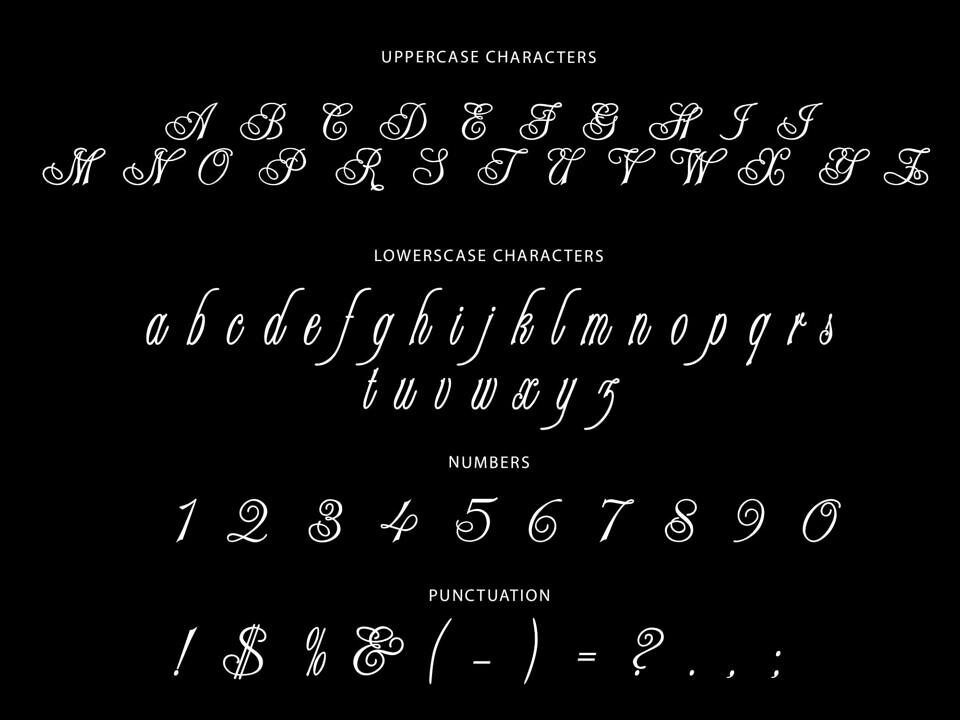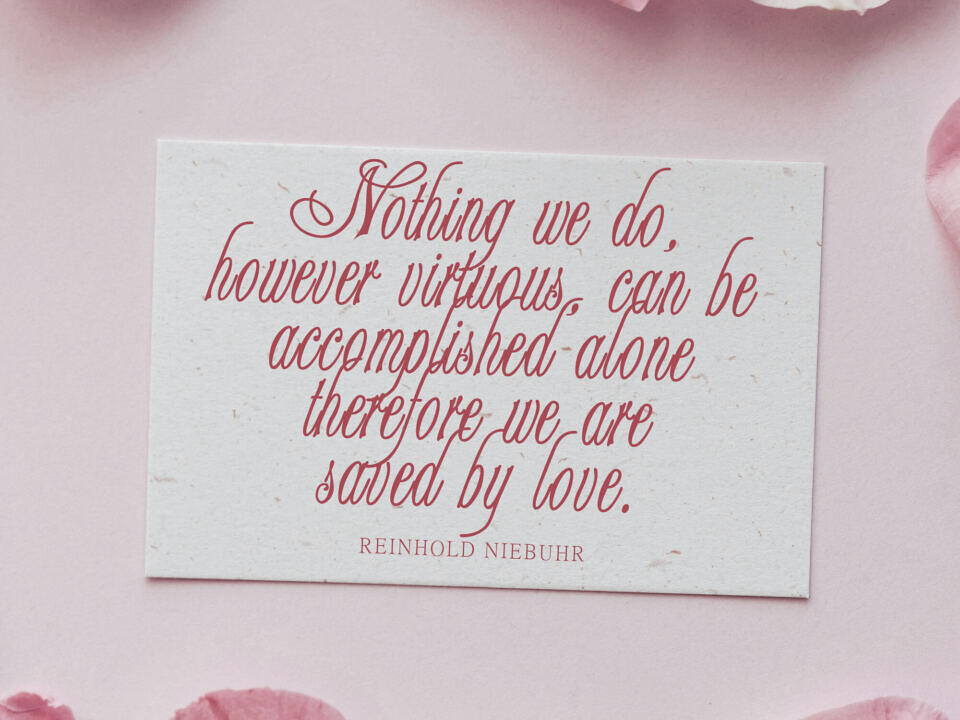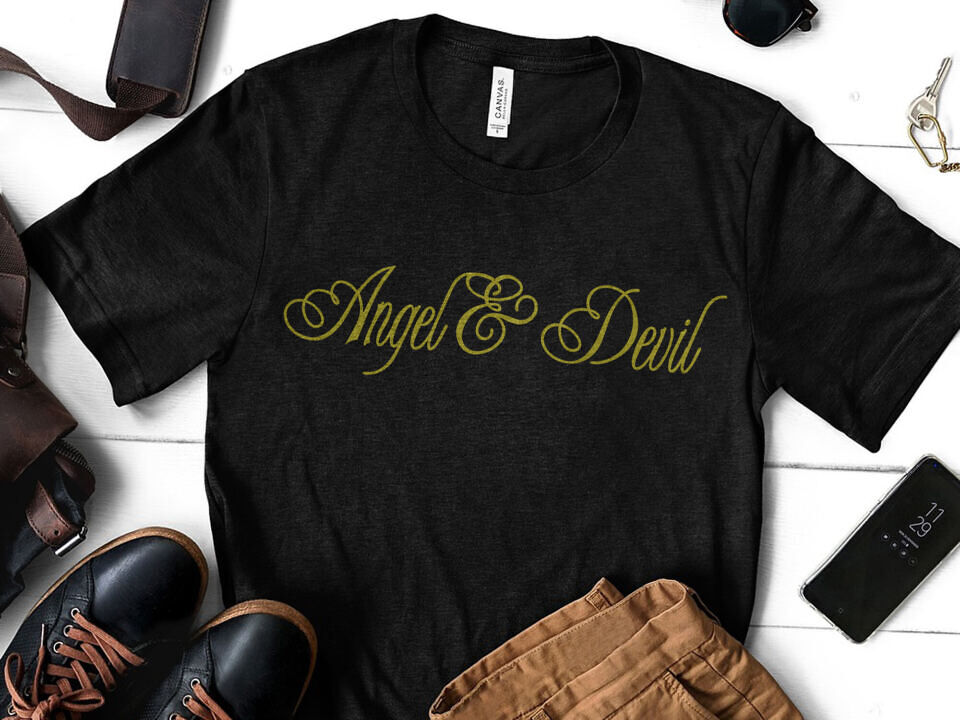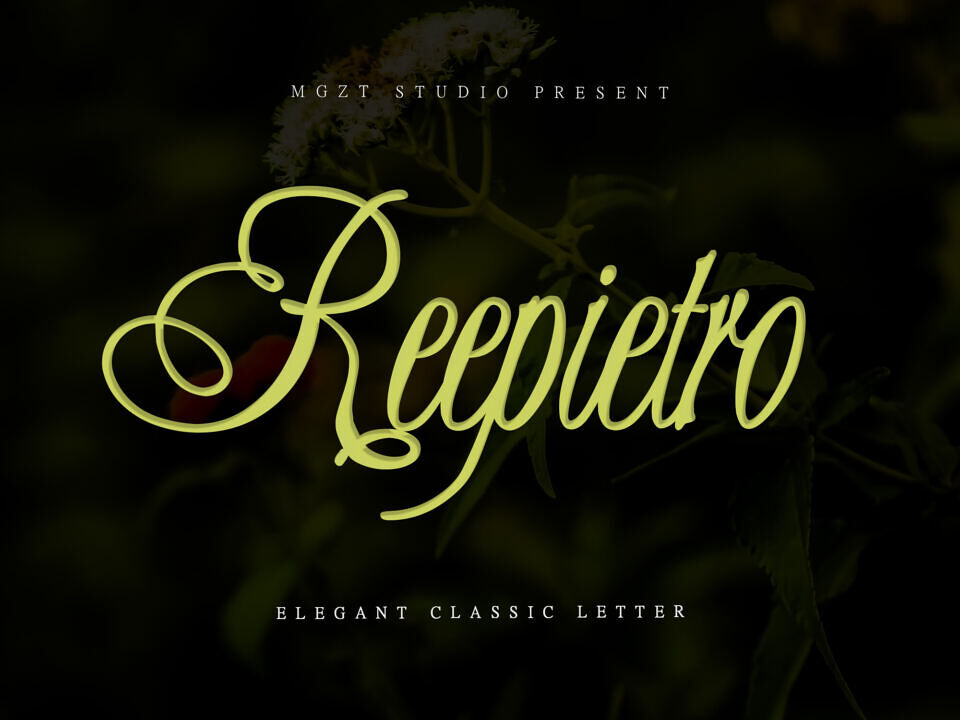
Reepietro Font
Reepietro is a refined script typeface that blends contemporary elegance with classic design principles. Influenced by traditional signage and vintage aesthetics, it features fluid curves and balanced letterforms that convey both sophistication and versatility.
Its timeless character makes it suitable for a range of applications, from branding to editorial design, offering a seamless fusion of historical charm and modern functionality.